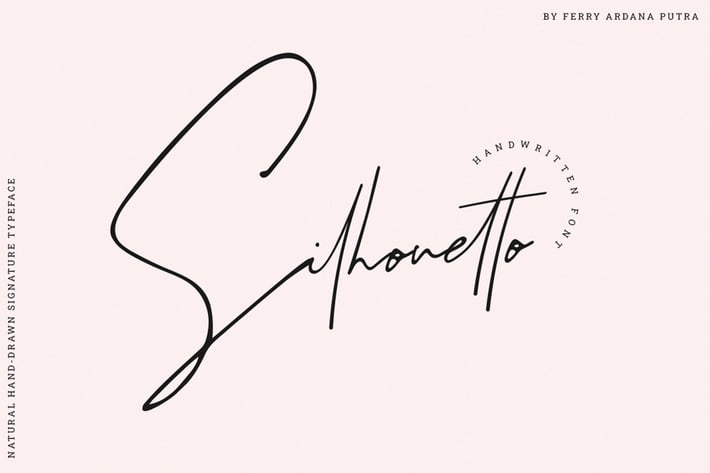
Silhouetto | Hand-drawn Signature Font
Silhouetto natural signature typeface which is made using Hi Tech C Pen. You will get a super natural feel which make your project more original and remarkable! You will get full set of lowercase and uppercase letters, numerals and punctuation, multilingual symbols, alternate lowercase, and pack of ligatures. This font that is suitable for branding, signature, wedding invitation, promotion, product packaging, and other needs. This font is natural, simple, but still authentic and very stylish.
Silhouetto Features:
Ligatures
Uppercase and Lowercase letters
Numbering, Symbols, and Punctuations